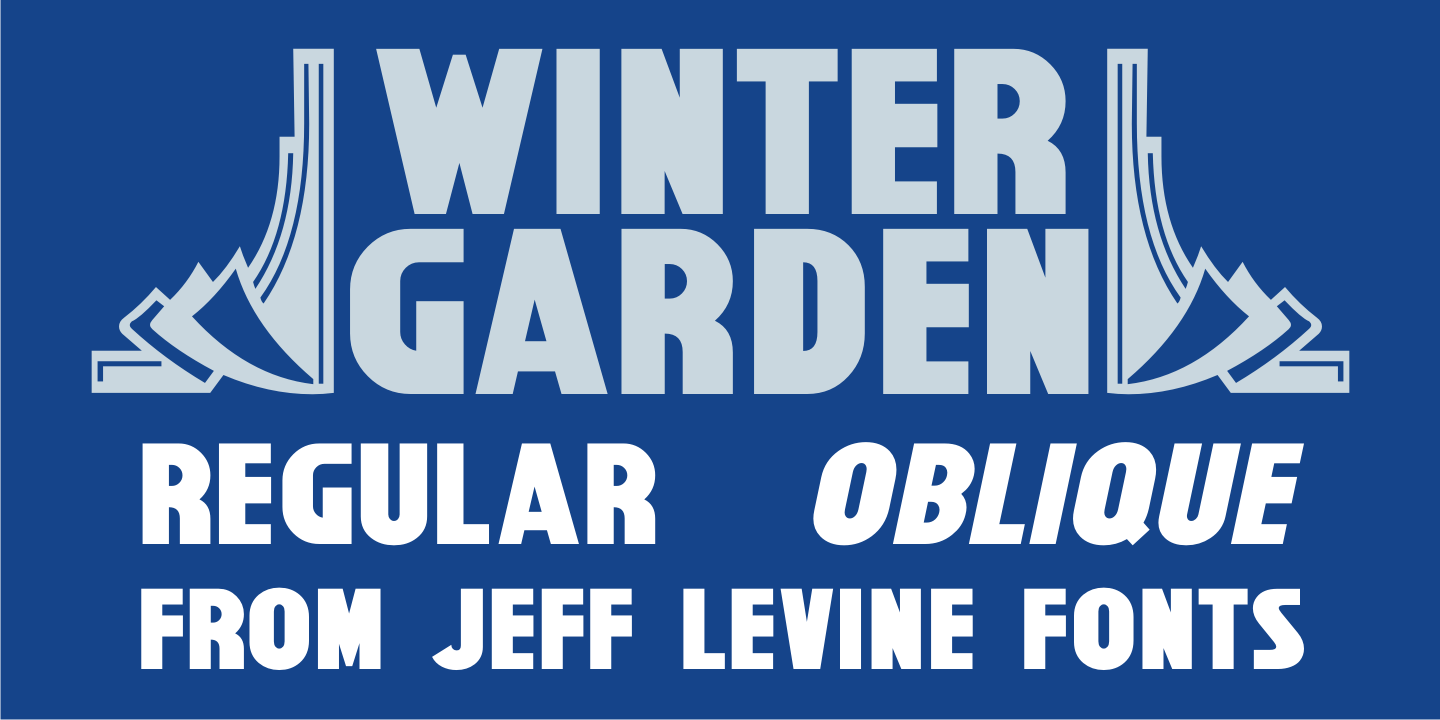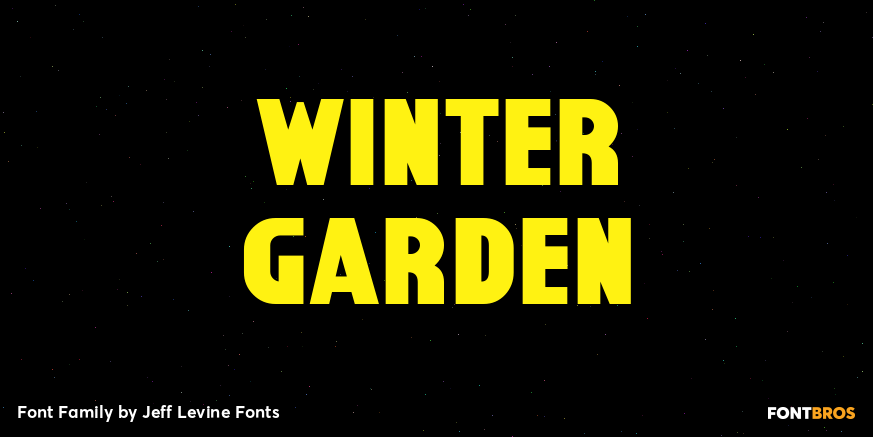
Winter Garden
Winter Garden JNL was modeled from the eccentric sans serif hand lettering with varying line widths found on the sheet music of 1917's "When the Girl You'd Give the World to Win Gives Her Heart to You". (It seems that sheet music from the early 1900s often had song titles that were more than just a few choice words. This particular ditty's title took up fourteen words to make its point.)
The font is available in regular and oblique versions and gets its name from both the famed theater in New York and the city located 14 miles West of downtown Orlando, Florida.